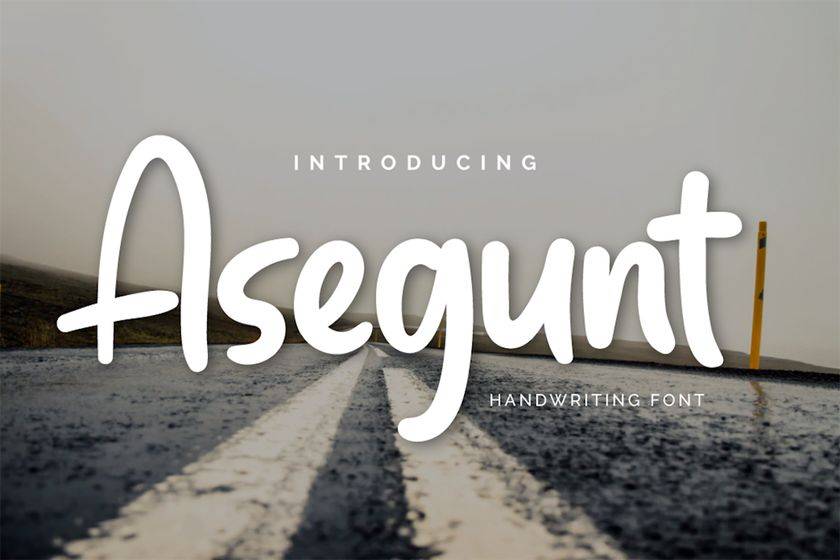
Asegunt is a casual, handwritten sans serif font with a friendly and approachable personality. Its tall x-height, lively stroke style, and slightly irregular letterforms give it an informal, playful feel that works well for creative projects, branding, and personal communication. This font is ideal for logos, posters, and websites seeking a warm and inviting touch.
Asegunt Font
About Asegunt Font